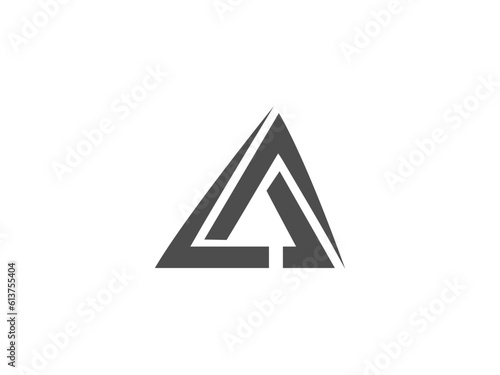
letter logo design, Modern abstract digital alphabet font. Minimal technology typography, Creative urban sport fashion futuristic font and with numbers. vector illustration,